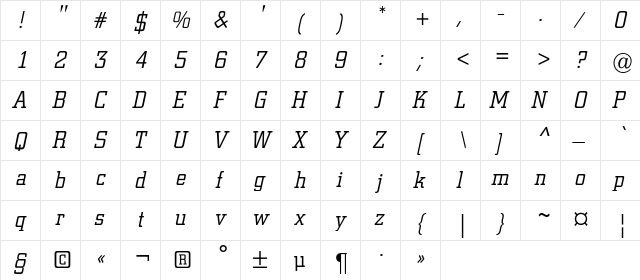
a_CityNovaLt Italic
Design Context for a_CityNovaLt Typeface
a_CityNovaLt is a composed and adaptable typeface that performs quietly and consistently across a wide range of design contexts. The dynamic lean of this cut emphasises speed and emphasis in any layout.
Pro Tip: Use a_CityNovaLt for emphasis, pull quotes, and subheadings where its slanted energy can add rhythm to the layout.